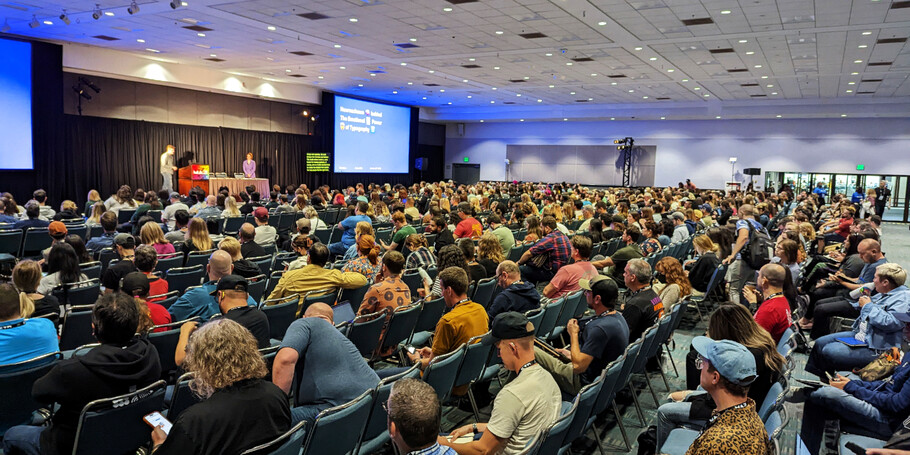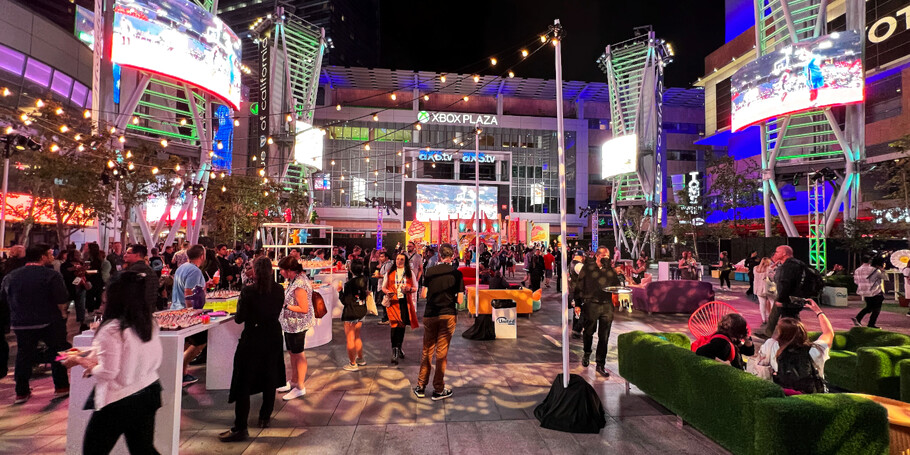
Creative Characters S2 E17: 'Live' from Adobe MAX, this week's guest is: You!
Michael Meer, Adobe MAX attendee.
In honor of the first in-person Adobe MAX since 2019, we’re switching up our blog post style to follow a 3-2-1 format (3 quotes, 2 observations and 1 question to ponder) and to include your creative voices. But first, we have some catching up to do. We just got back from Adobe MAX 2022, where we hosted a type lab, hand lettering, variable type and grafitti workshops, branded sticker making, and gave a speaking session to a nearly packed room at the Los Angeles Convention Center. Our type lab drew an hour long line at many points during the week. Inside this immersive experience, MAX attendees put on an emotiv headset and a computer read their emotional reactions to typefaces to create a heat map based on their brainwaves.
“This year we’re on a big mission, which is to explore the neuroscience of type and how people’s brains react to different typefaces. Fonts have been relatively unexplored for now, and we want to change that,” says Marie Boulanger, Brand Designer at Monotype, who’s been leading the research with Neurons, which analyzes peoples’ emotional response to different typefaces.
The visitors at our booth had varying reactions to the type lab. Several were fearful of being most reactive to Papyrus or Comic Sans, whereas others were simply eager to explore their results. The quantifiable aspect to the type lab was especially interesting for one designer. “I do a lot of creative consulting around branding for small businesses, and many people have no experience with branding or marketing, so they’ll have opinions about type, but won’t be able to necessarily speak about the way that they feel and why,” says Michael Meer from NY. Having a quantifiable way to think about type could be a huge help when working with clients.
Many attendees also shared that AI has proven to be a useful tool for design practices, naming DALL-E as something worth exploring. If you haven’t heard of it, DALL-E is an AI tool that can generate images based on lines of text. “I think the future is very much approaching AI as a kind of personal assistant or an extra tool — just like how we use Photoshop or Premiere Pro, and approaching it that way so we’re still putting the focus on the artist. It’s still very much about what the artist is coming up with and what they’re putting into it,” says Tanya Gupta, art director and former NASA engineer at IBM.
When we think about our approach to choosing typefaces, there’s no denying that our personal biases and pre-existing likes and dislikes come into play. There is an inherent emotional response to typography. Having new approaches to choosing typefaces can make all the difference when approaching design projects.
As you reflect on Adobe MAX 2022 and the new year ahead, we want to know: How do you plan to spend your time more meaningfully in 2023?